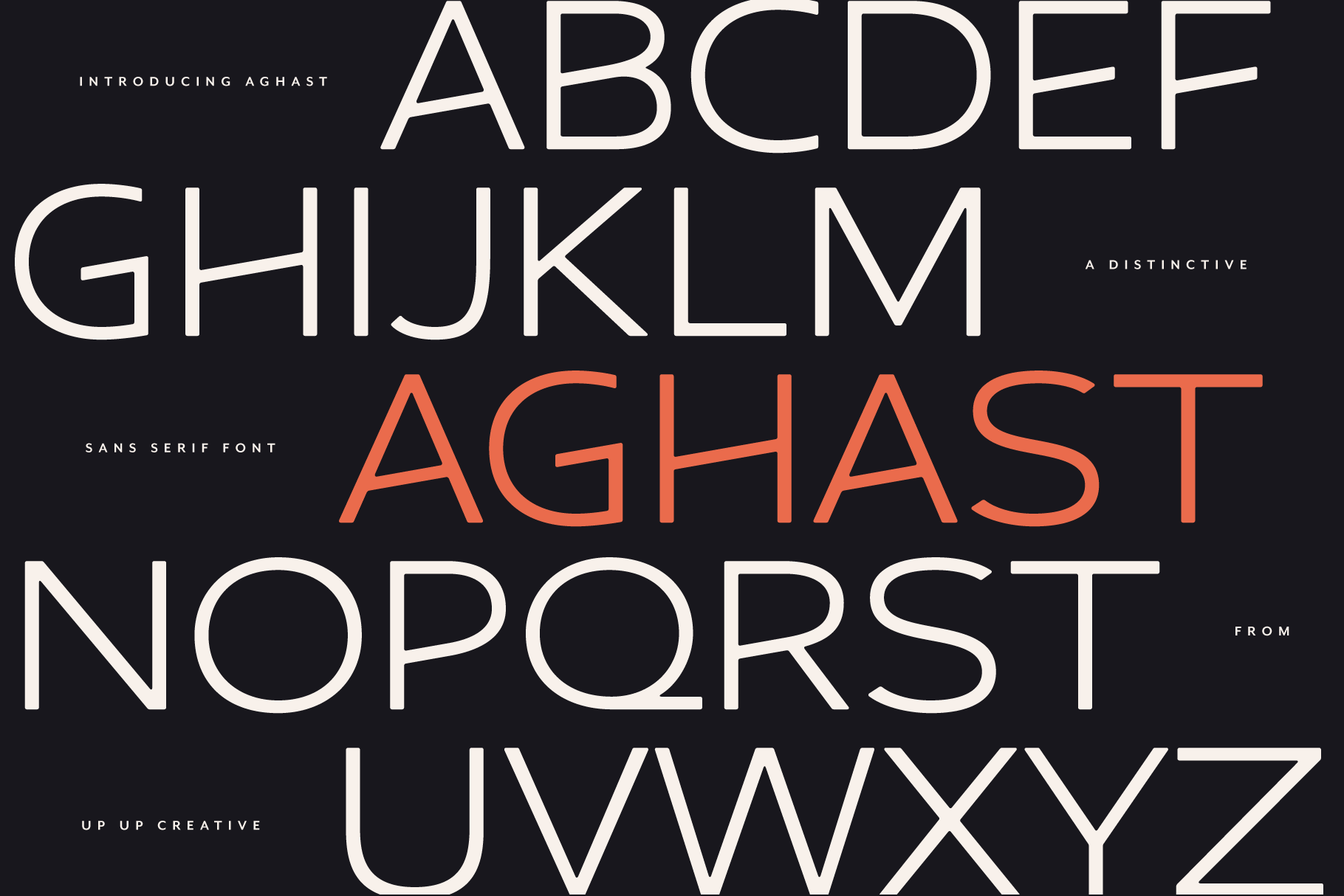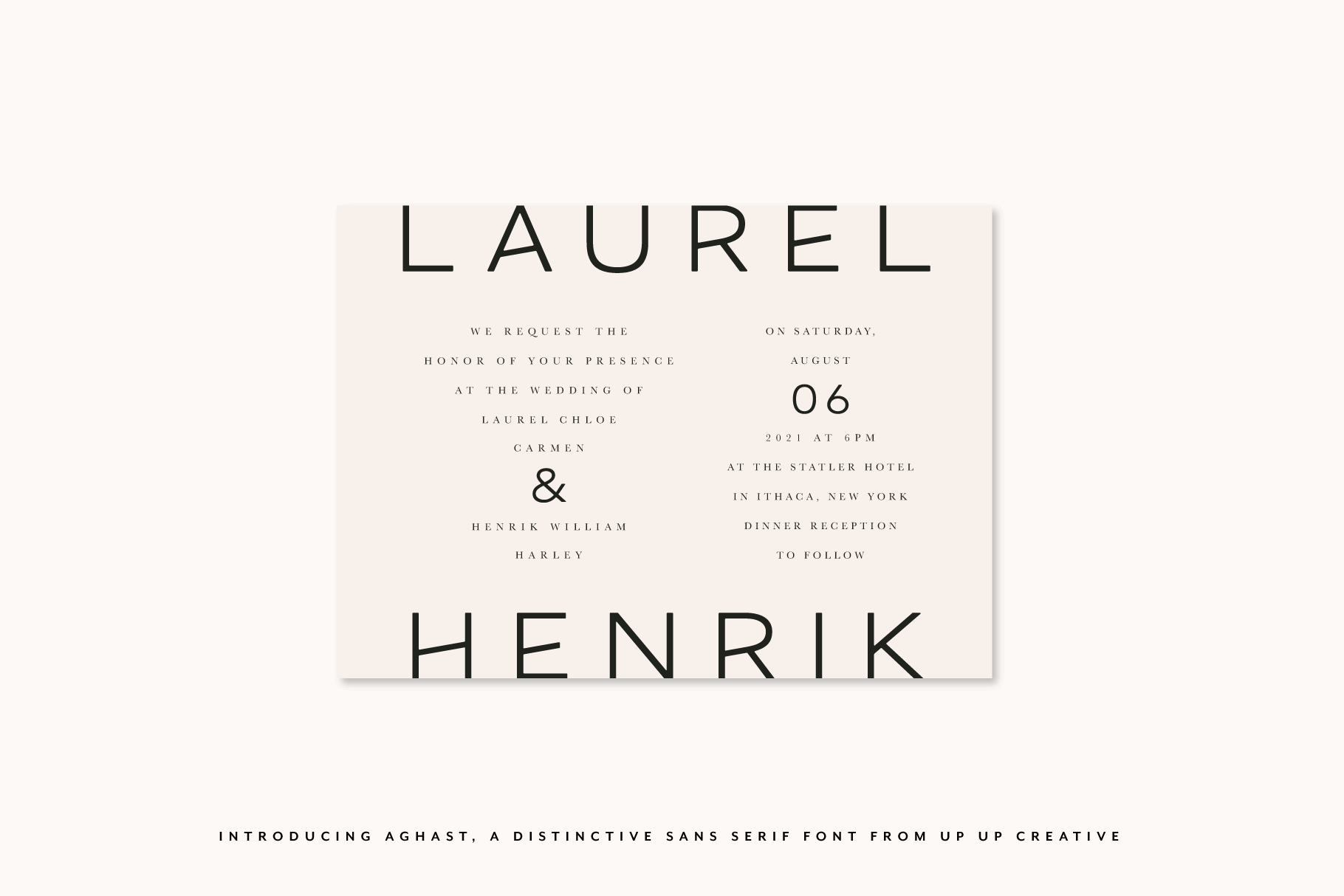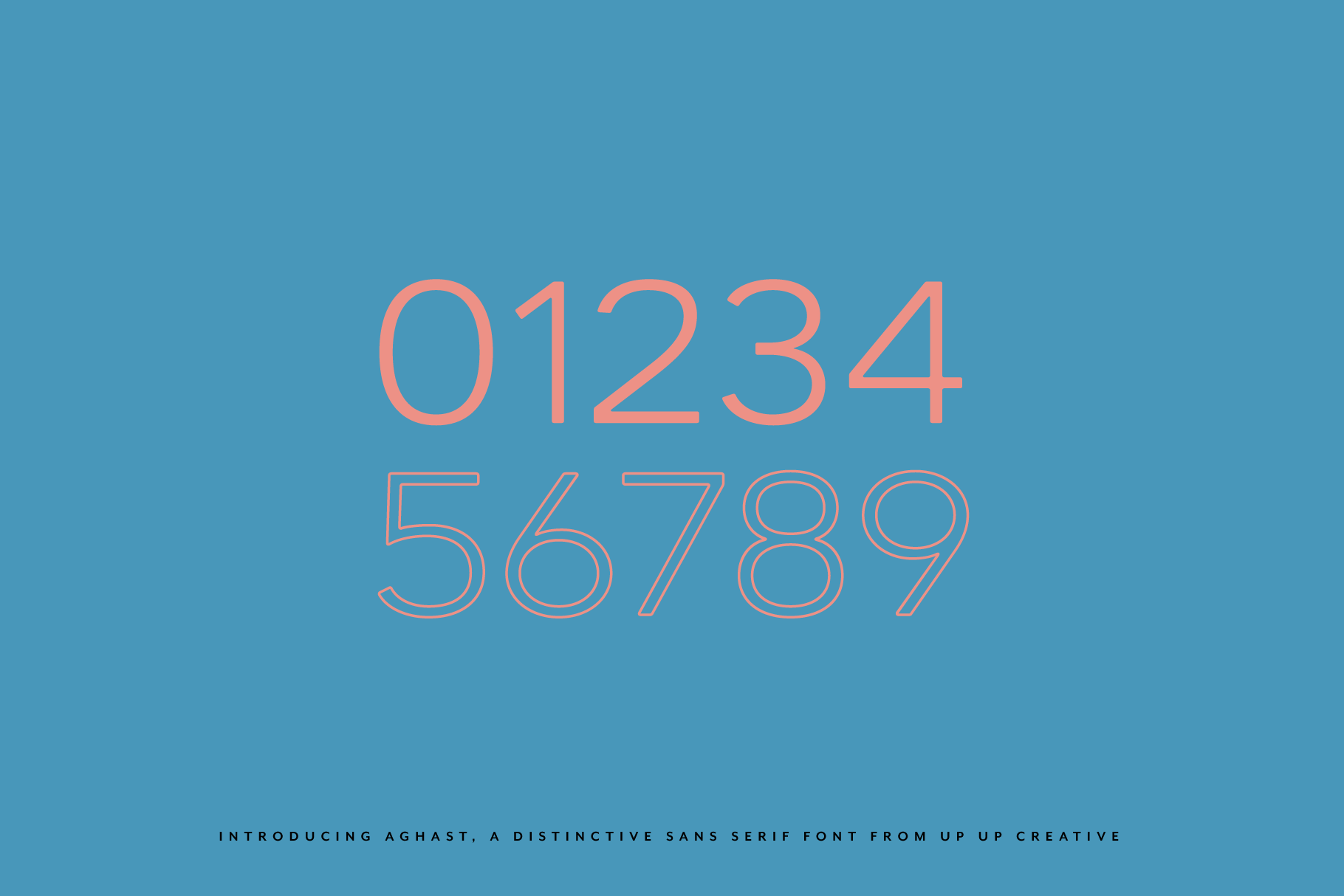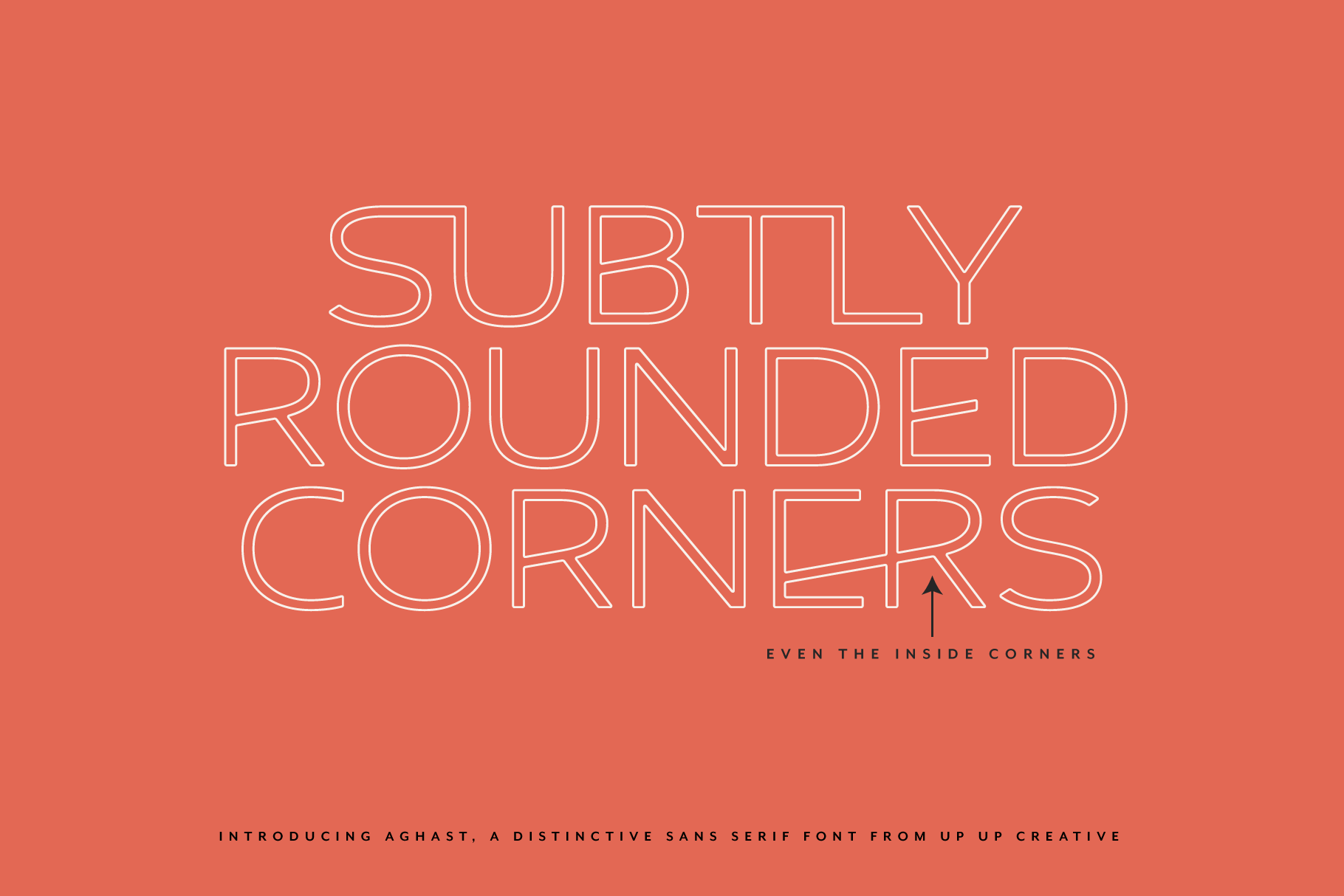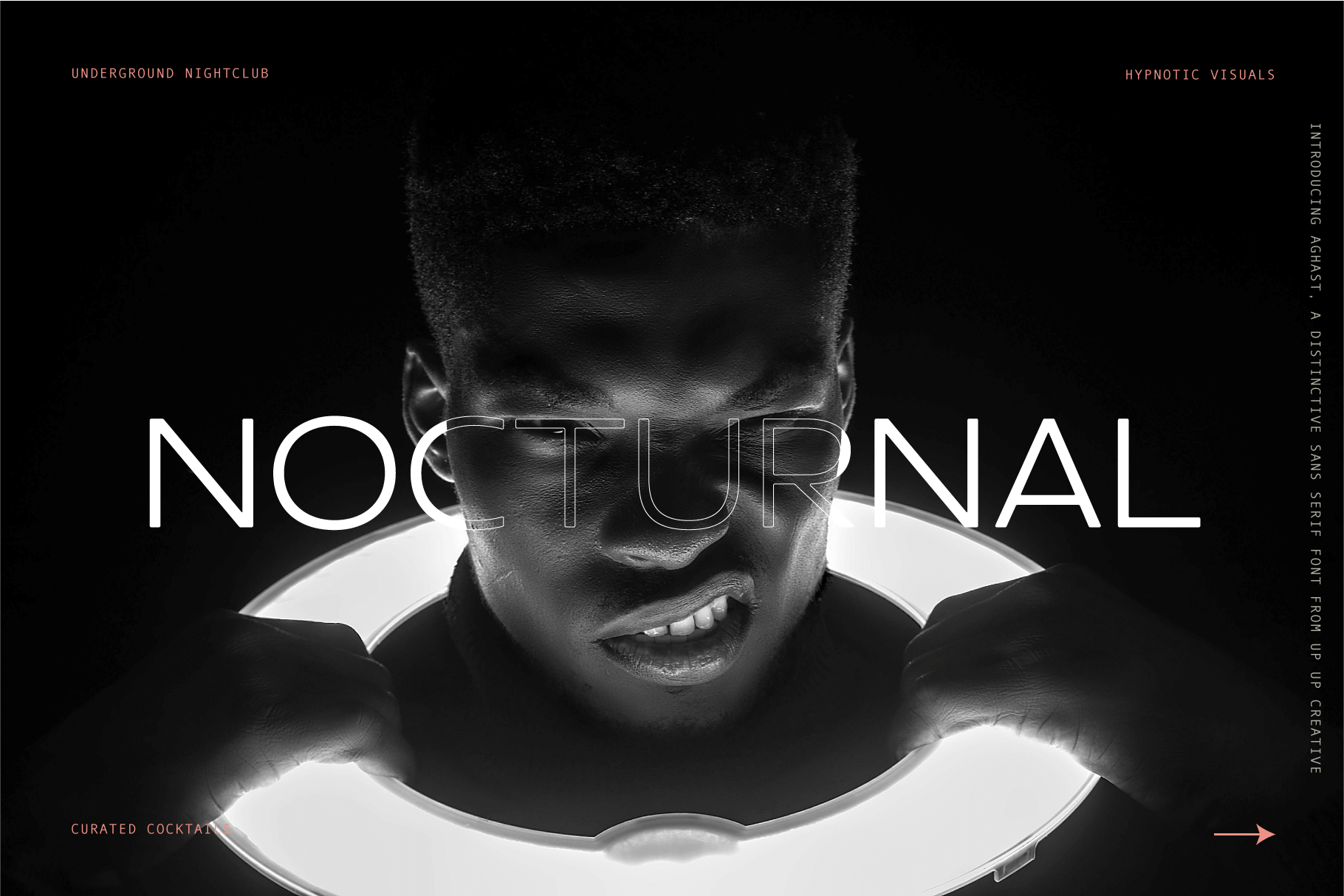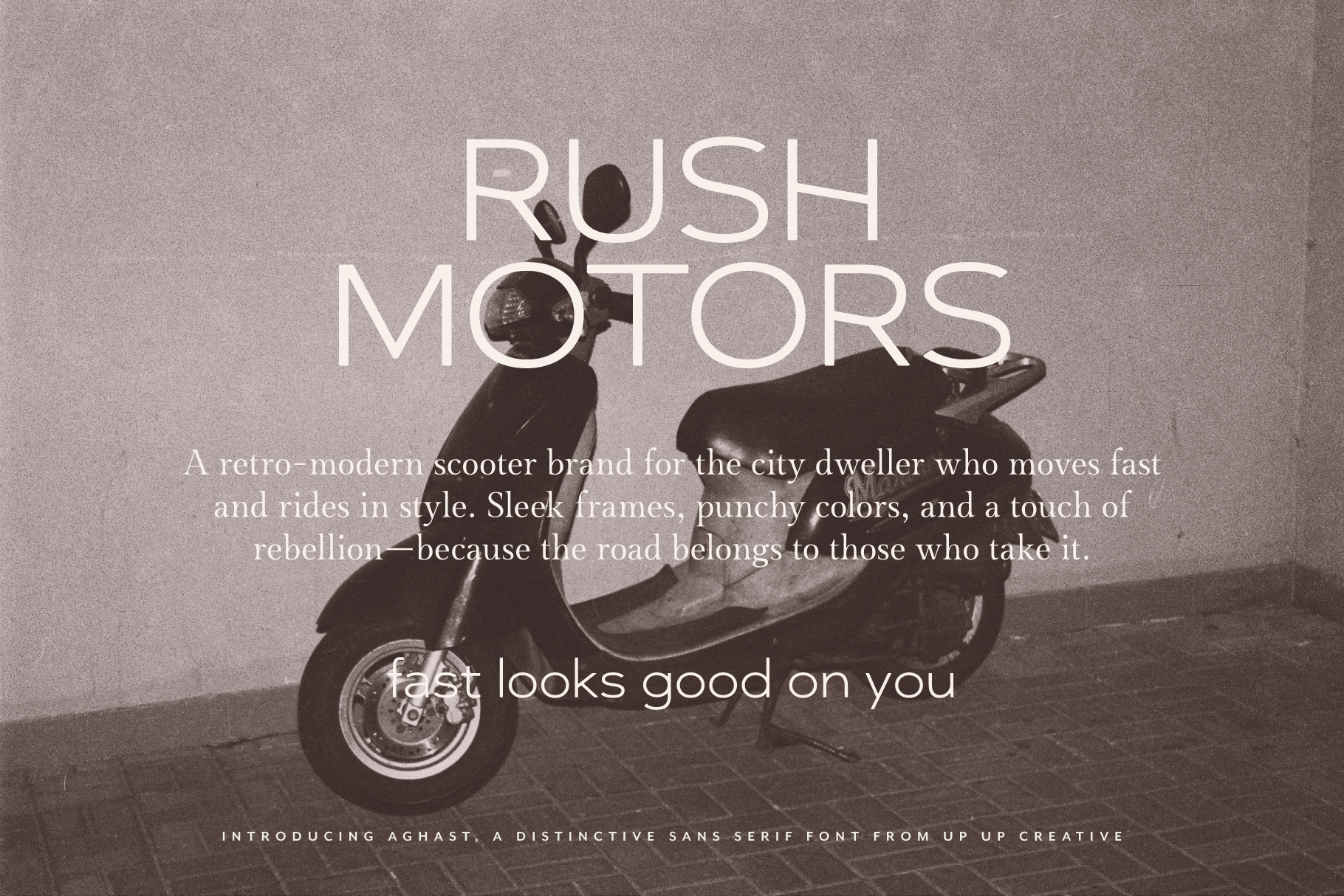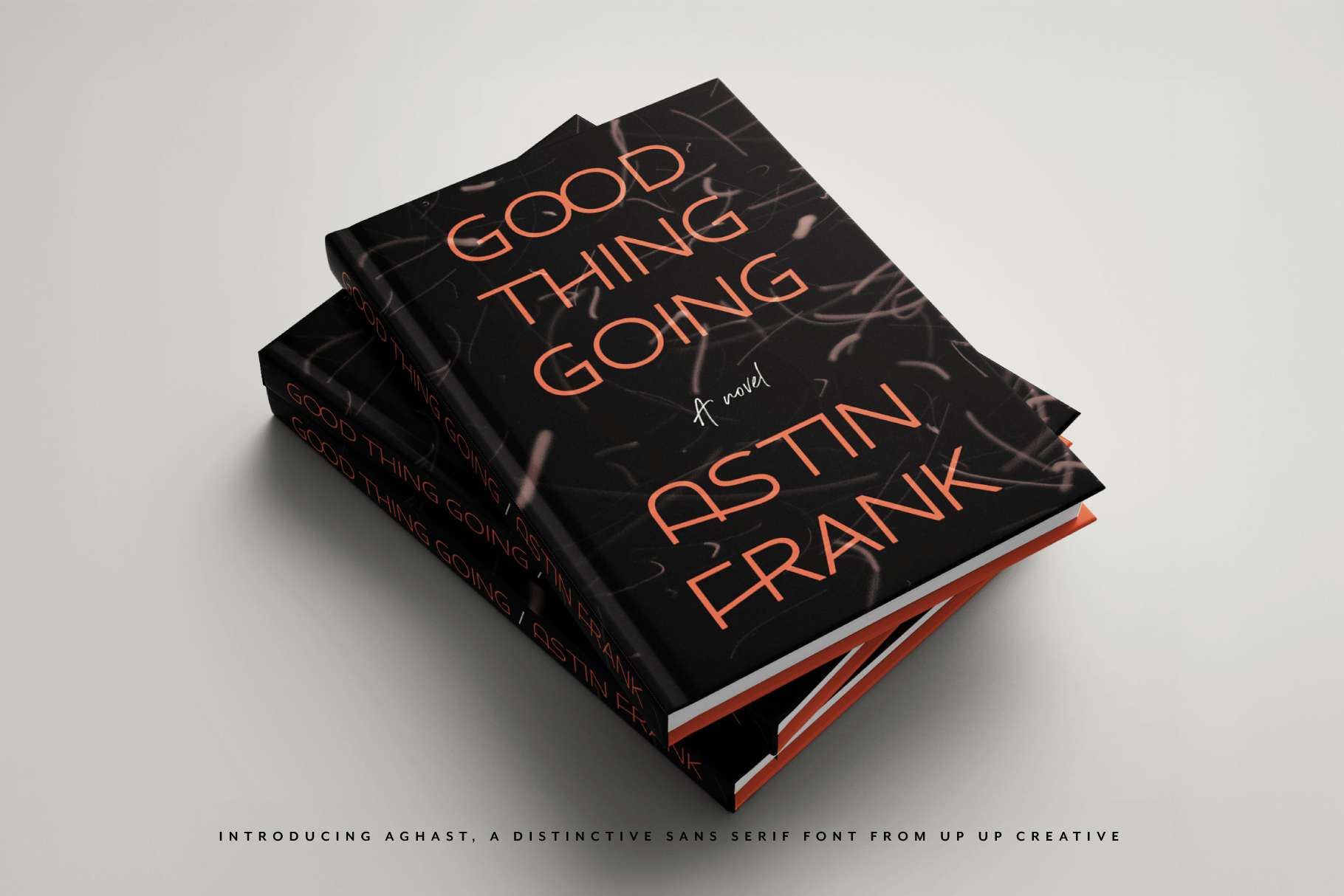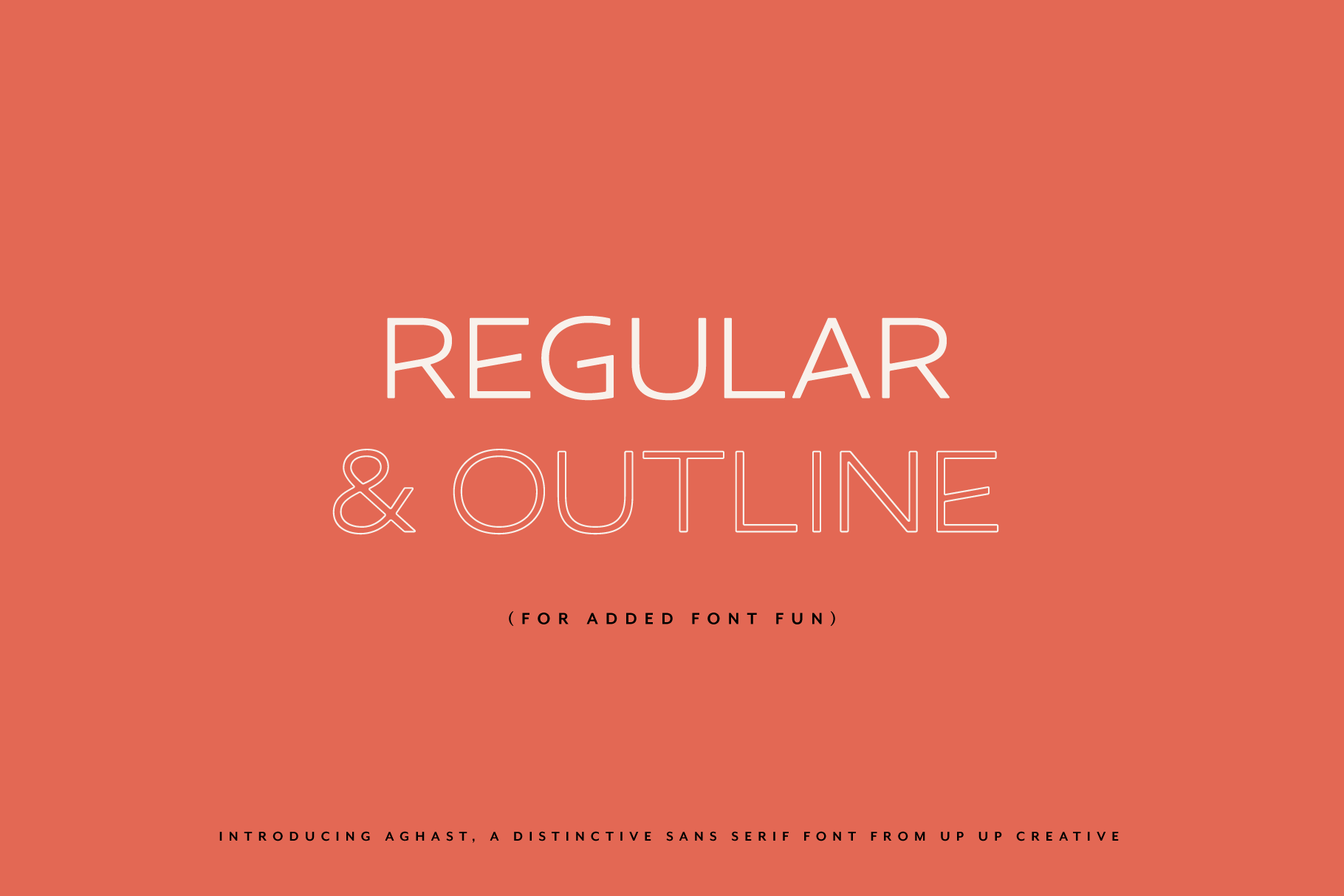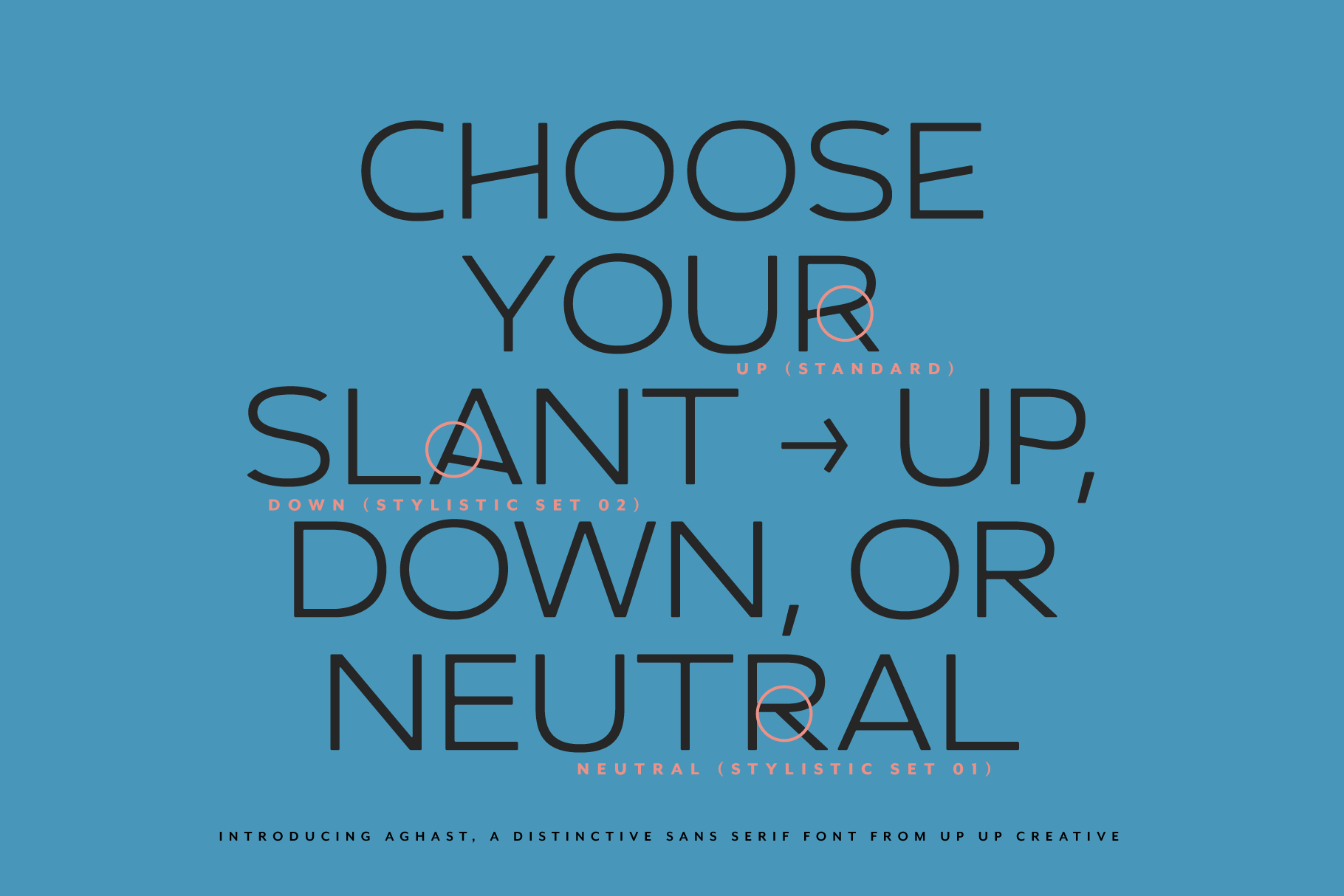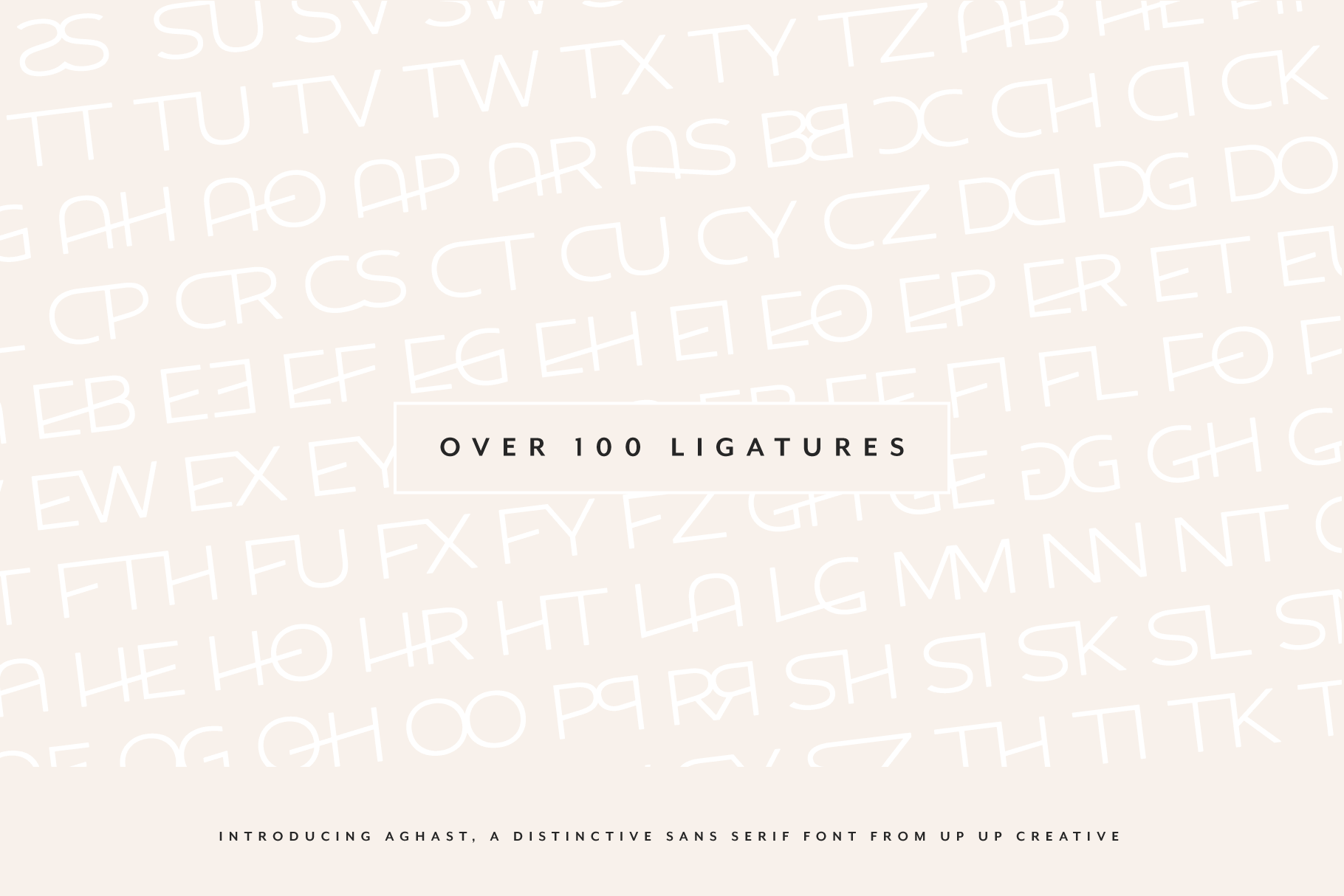
Aghast Sans Serif Font
Aghast is a sans serif that balances minimalism with a distinctive personality, offering over 700 glyphs and more than 100 ligatures. Its three stylistic sets—slanting up, neutral, and slanting down—let you control the rhythm and feel of your typography. Available in both regular and outline styles, Aghast is a versatile choice for editorial design, branding, logos, marketing, publishing, book covers, and even modern wedding and stationery design.
Aghast includes the following OpenType features:
- character variants
- discretionary ligatures
- fractions, ordinals, and superscripts
- localized forms (multi-language and multi-currency support)
- standard ligatures
- stylistic sets
Includes 118 ligatures
- Includes 709 glyphs
- Regular and Outline